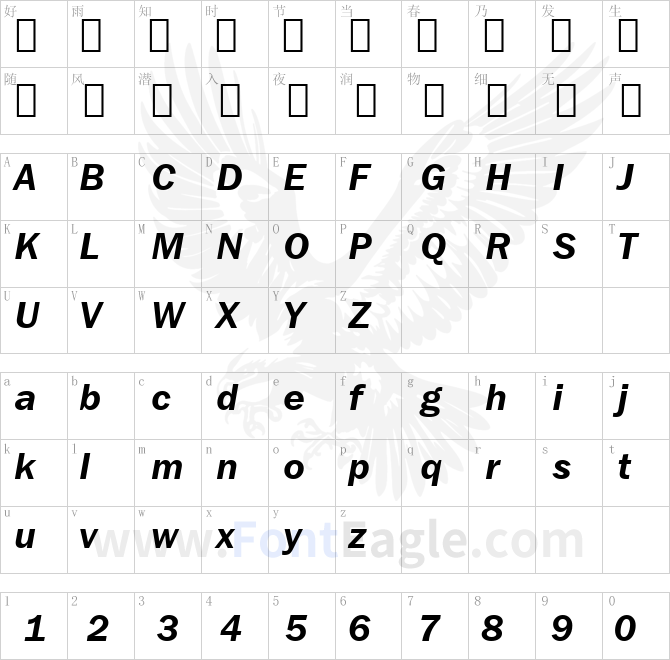
- Font name:FrnkGothITC Bk BT
- Font Subfamily:Demi Italic
- Font Subfamily ID:ITC Franklin Gothic Demi Italic, Gothic 744
- Font Full Name:Franklin Gothic ITC Demi Italic BT
- Postscript:FranklinGothicITCbyBT-DemiItal